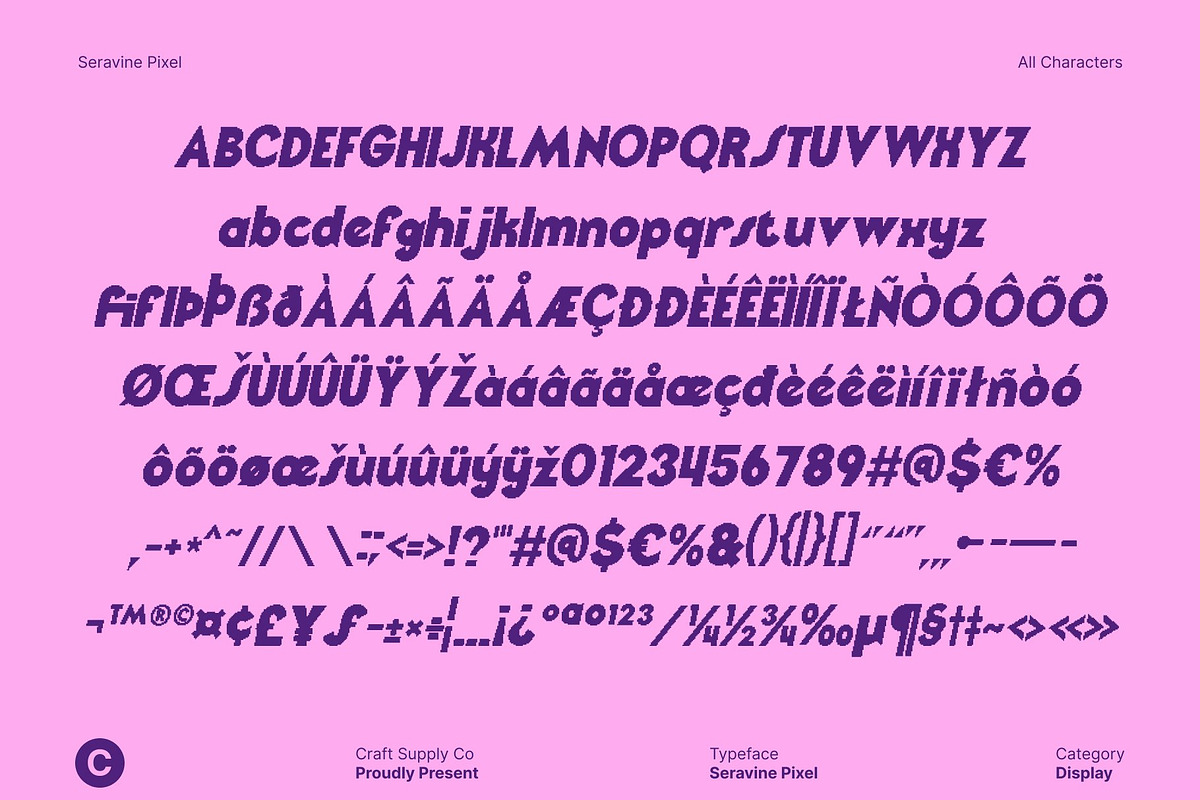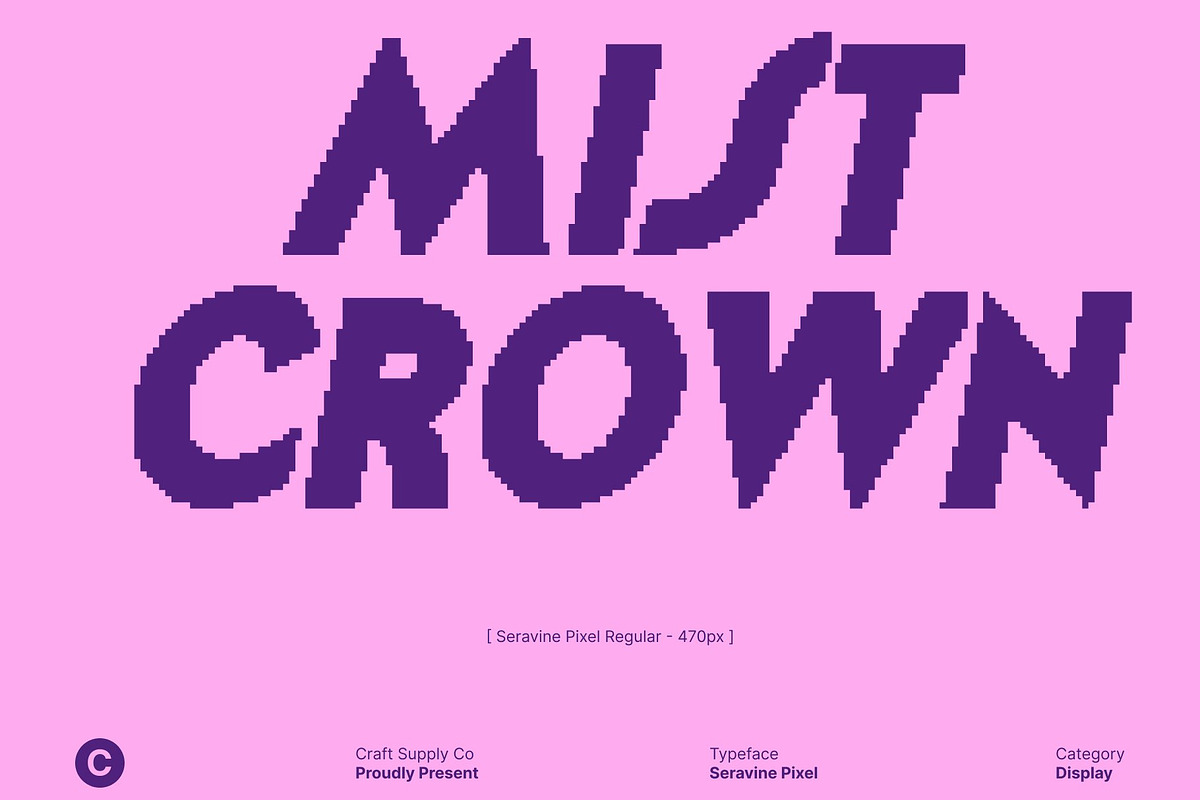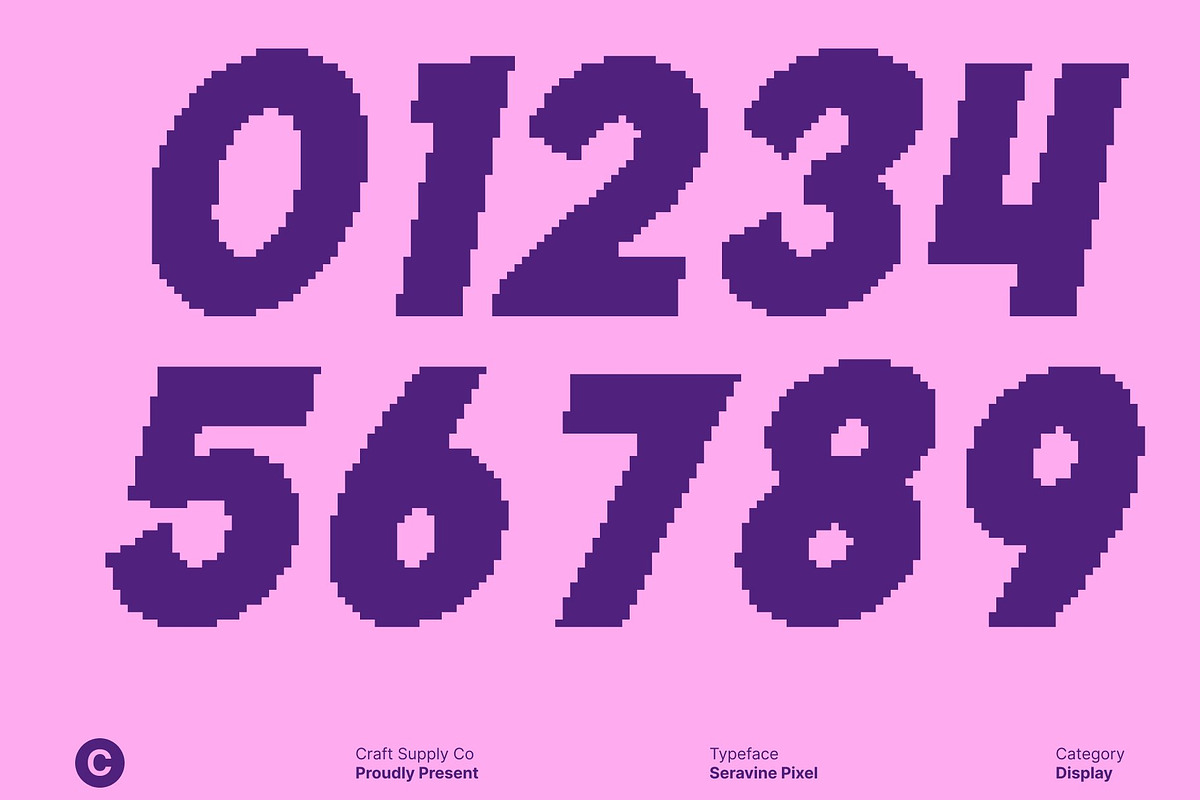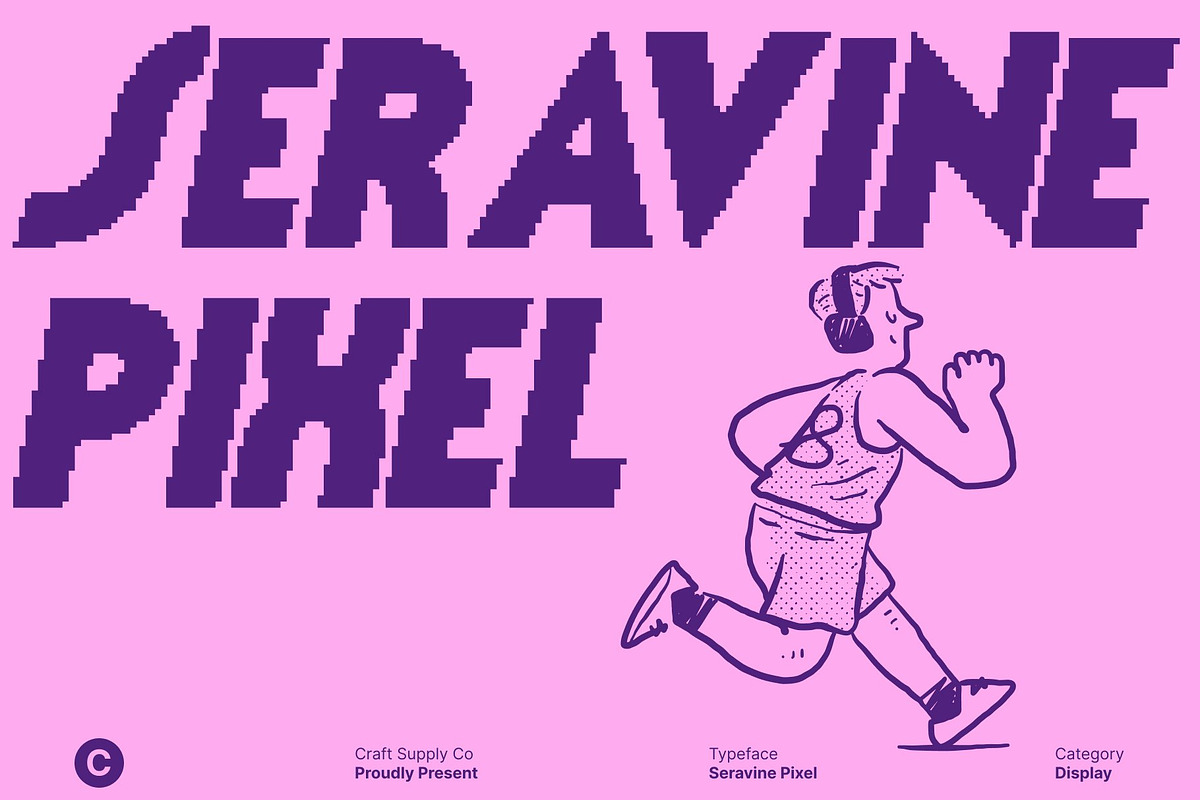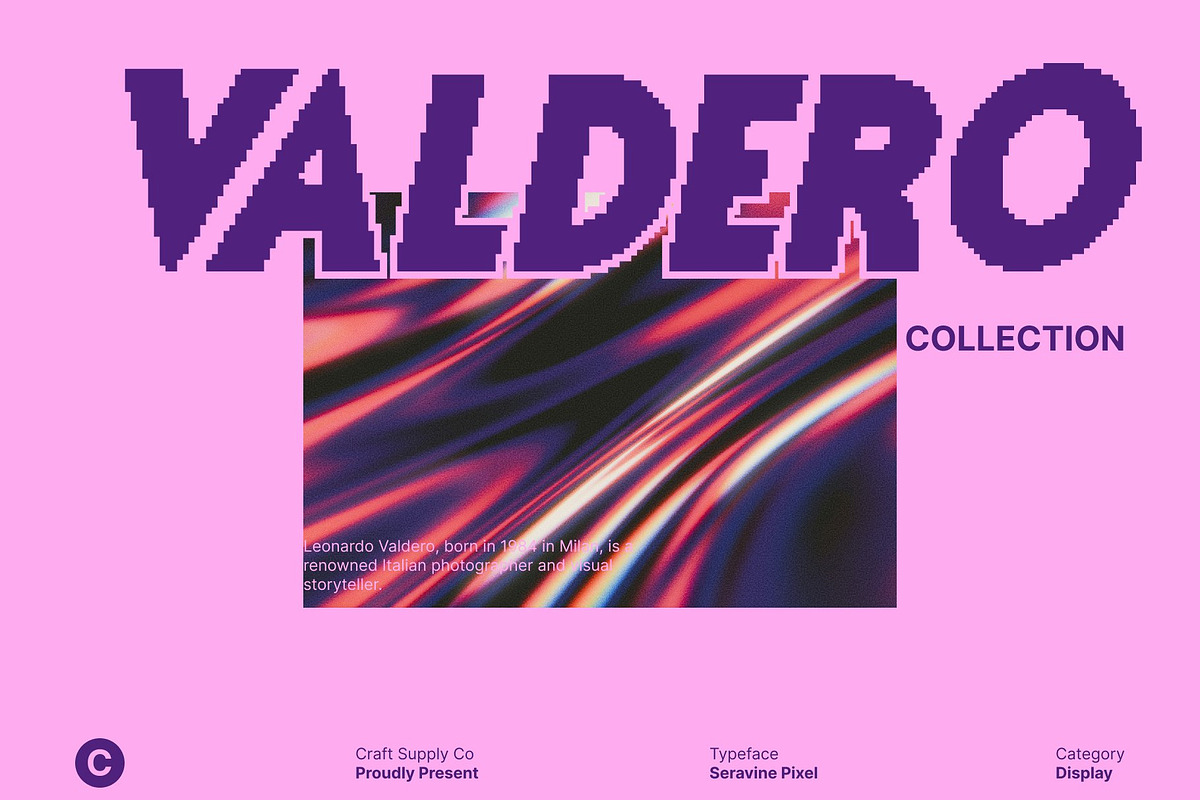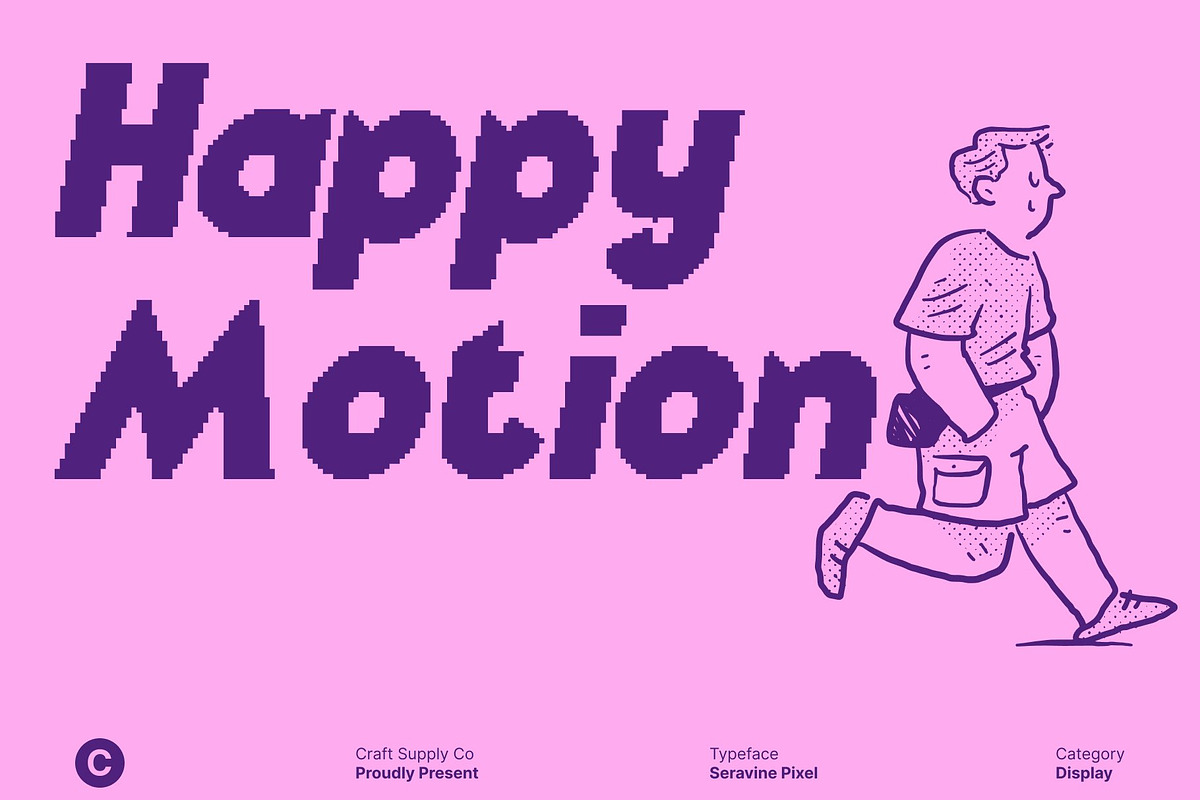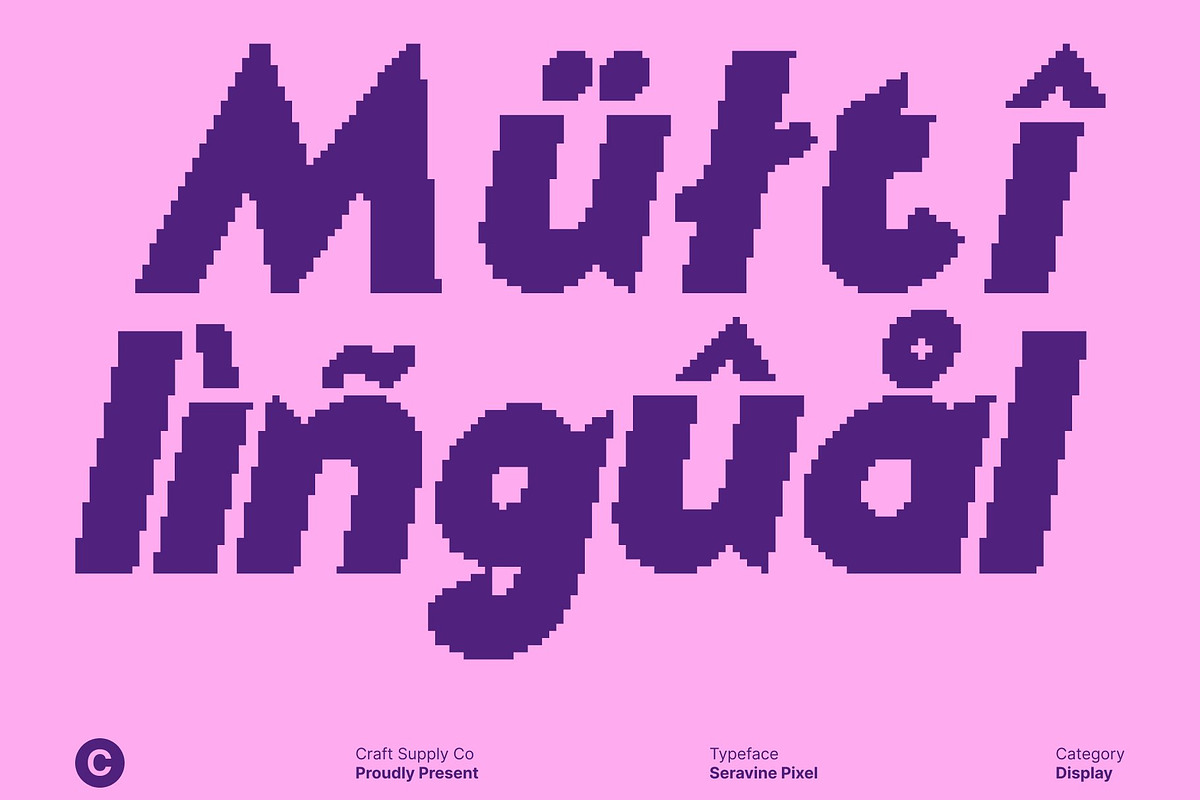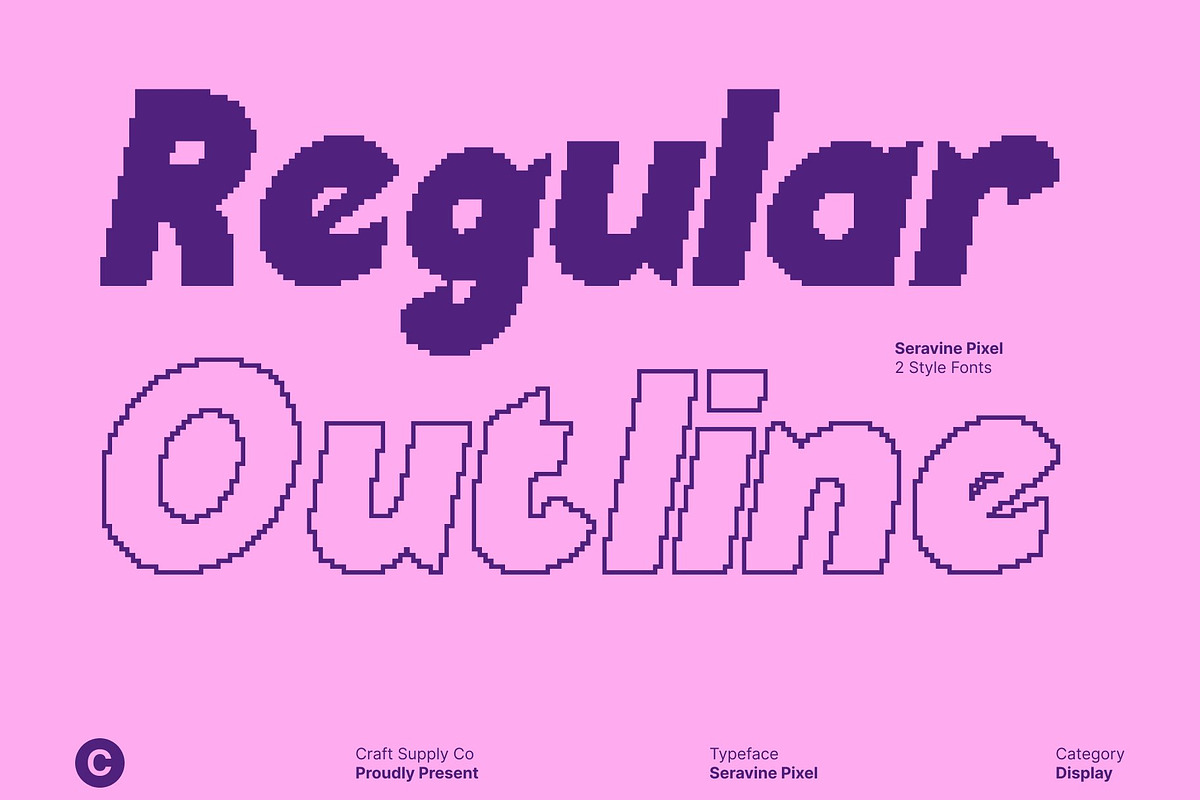
Seravine Pixel
Seravine Pixel – Bold Modern Sans Serif with Digital Pixel Character
A Bold Modern Typeface with Digital Attitude This is a modern sans serif font crafted with bold, contemporary lines that command attention in any visual space. Its strong structure and clean forms create a confident, modern presence perfect for designers seeking a typeface that feels both powerful and stylish.
Contemporary Shapes Enhanced with Funky Flair What sets this font apart is its subtle funky flair, embedded within its letterforms. The combination of sharp geometry and playful character creates a unique personality that energizes any design. This modern twist makes the font ideal for projects that want to feel fresh, expressive, and creatively bold especially in dynamic branding.
Pixel Texture for Authentic Digital Style Adding dimension and charm is the pixel texture that defines this typeface. Inspired by early digital typography and retro display screens, the pixelated finish delivers a nostalgic yet modern digital aesthetic. This texture enhances each letter with a tech-driven identity, making this font perfect for gaming graphics, digital posters, tech branding, UI-inspired designs, and futuristic concepts.
Ideal for Logos, Posters, Branding, and Digital Projects This font performs exceptionally well in logos, posters, headlines, product branding, digital content, and creative advertising. Its bold construction ensures strong visual impact, while the pixel texture adds a layer of stylistic uniqueness that helps your design stand out in modern digital environments.
- Seravine Pixel Regular
- Seravine Pixel Outline